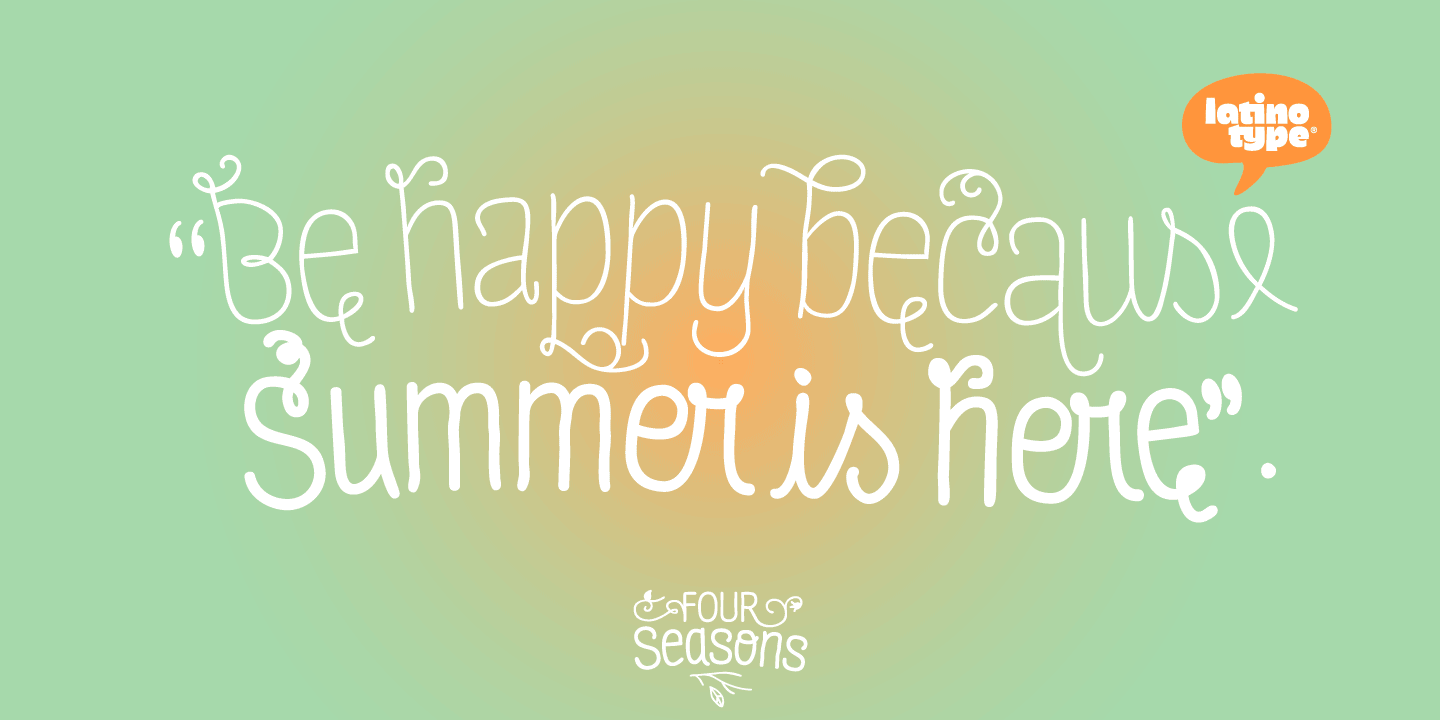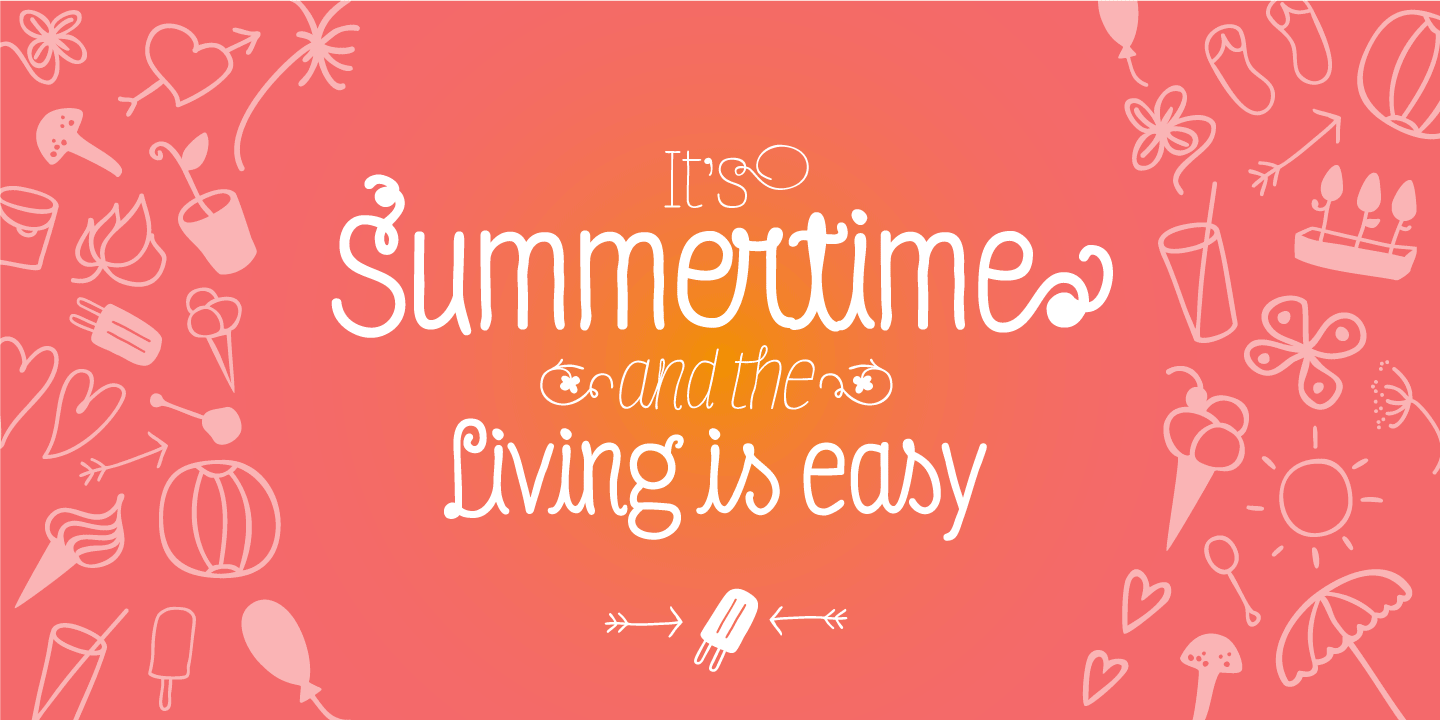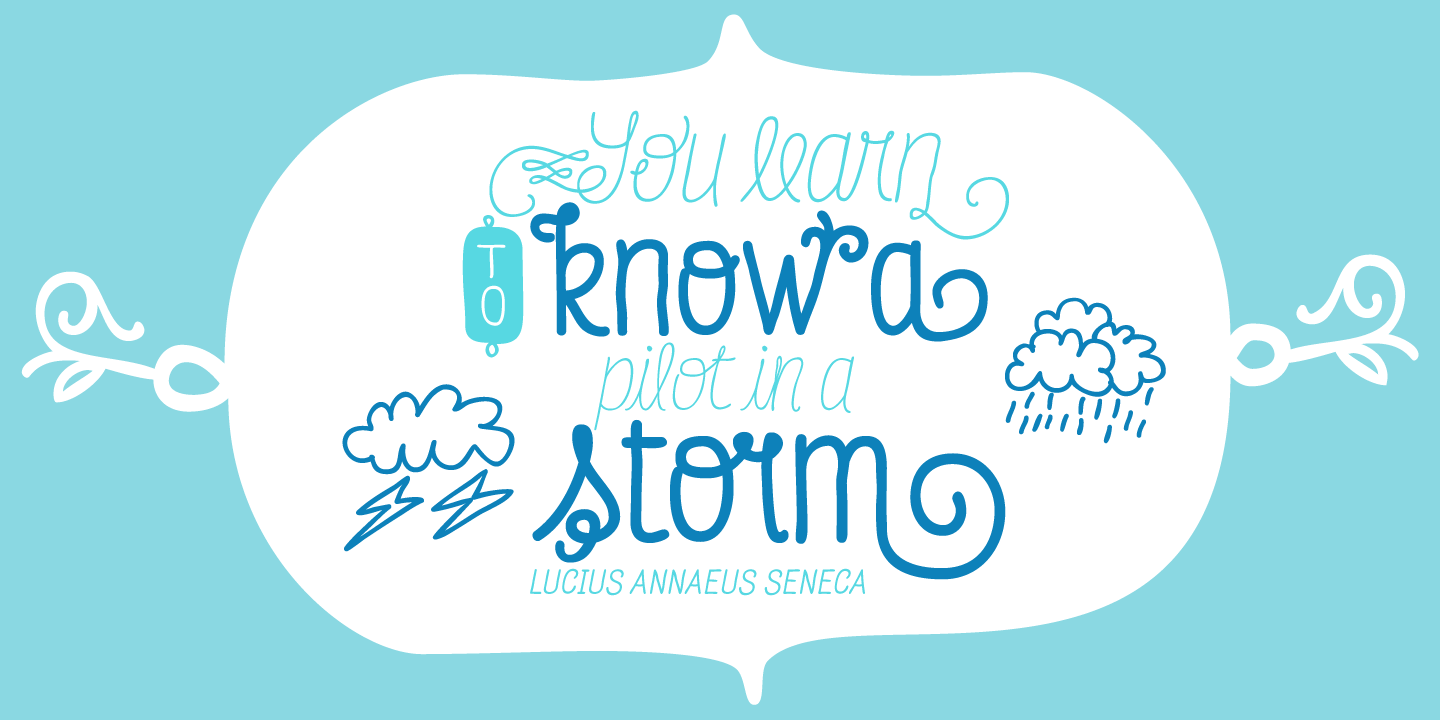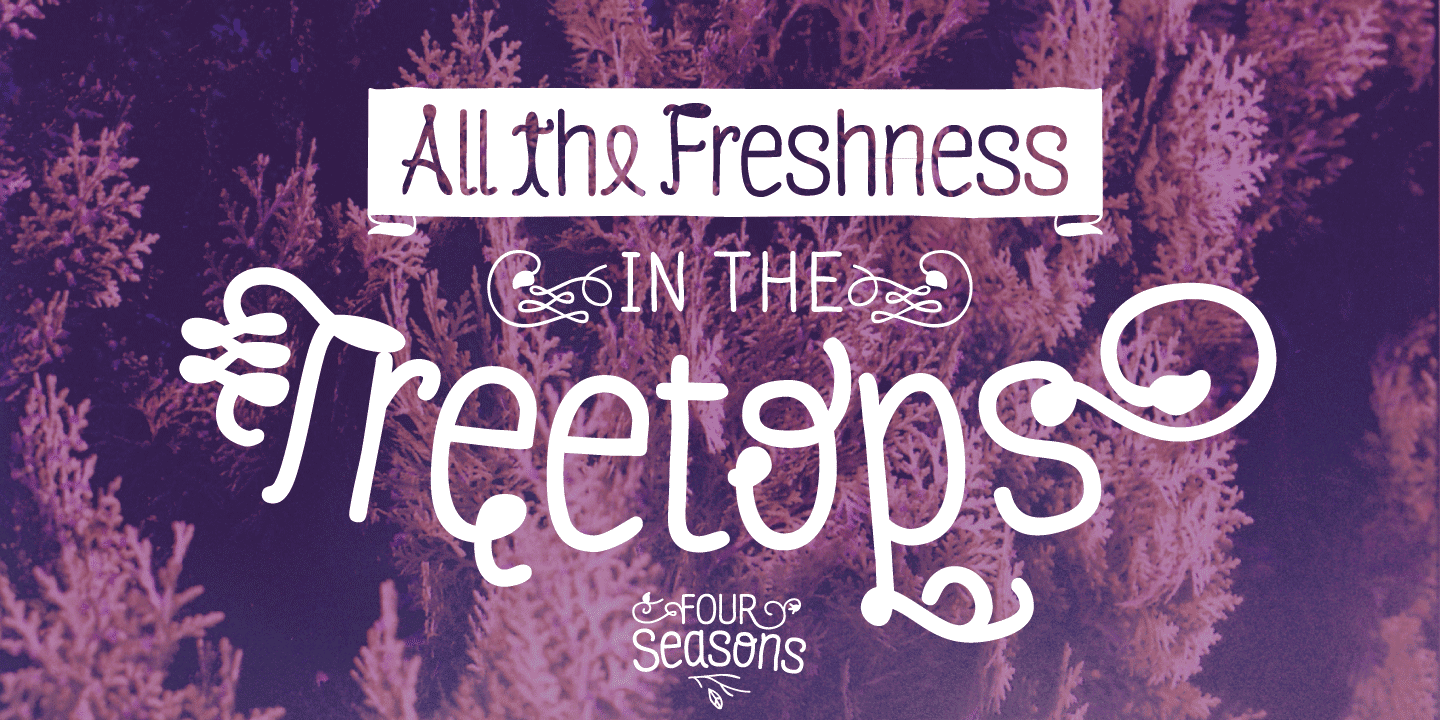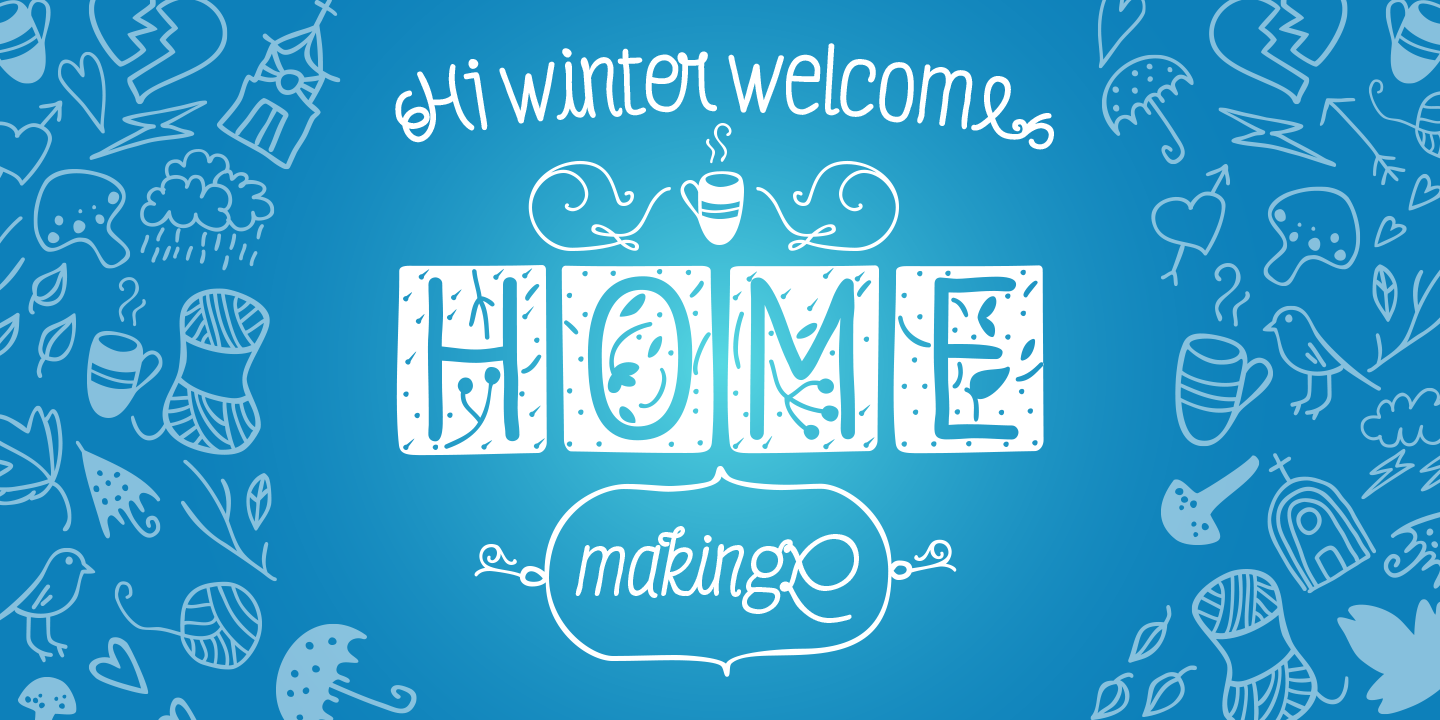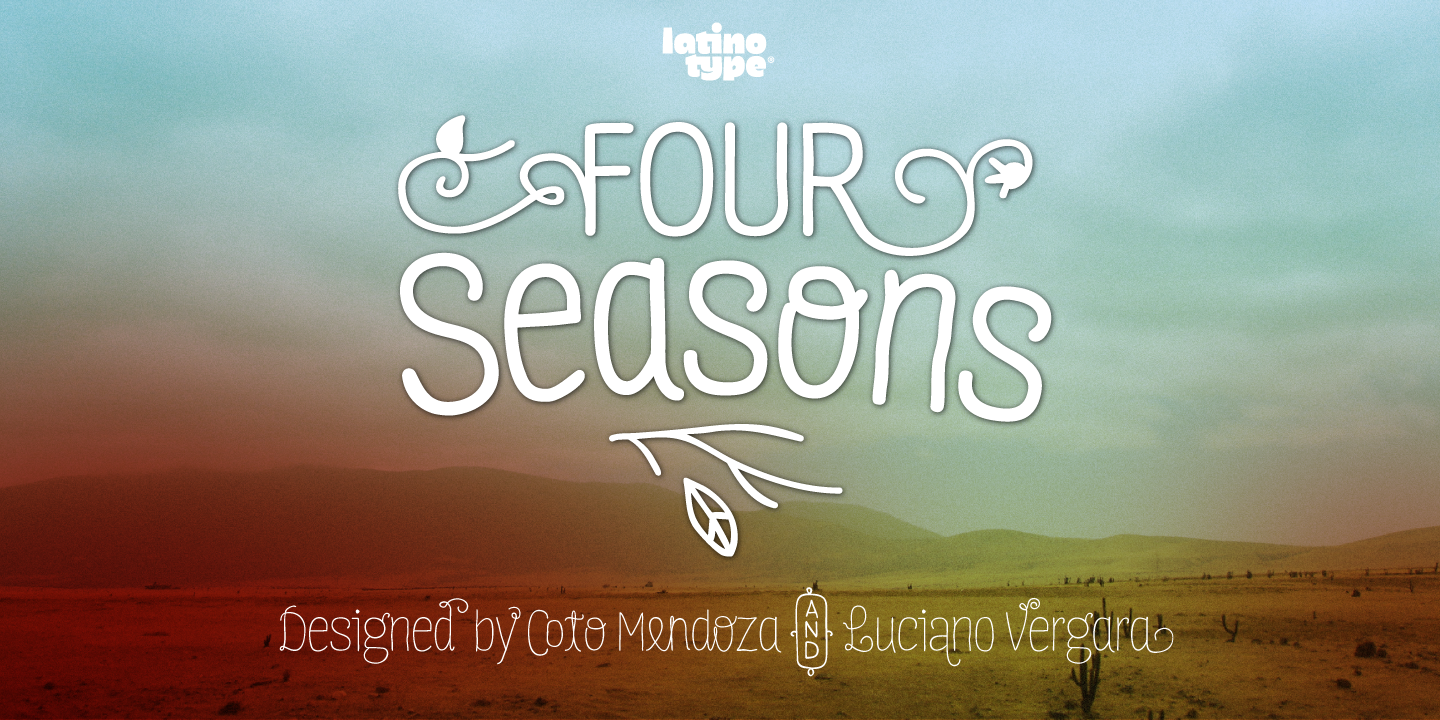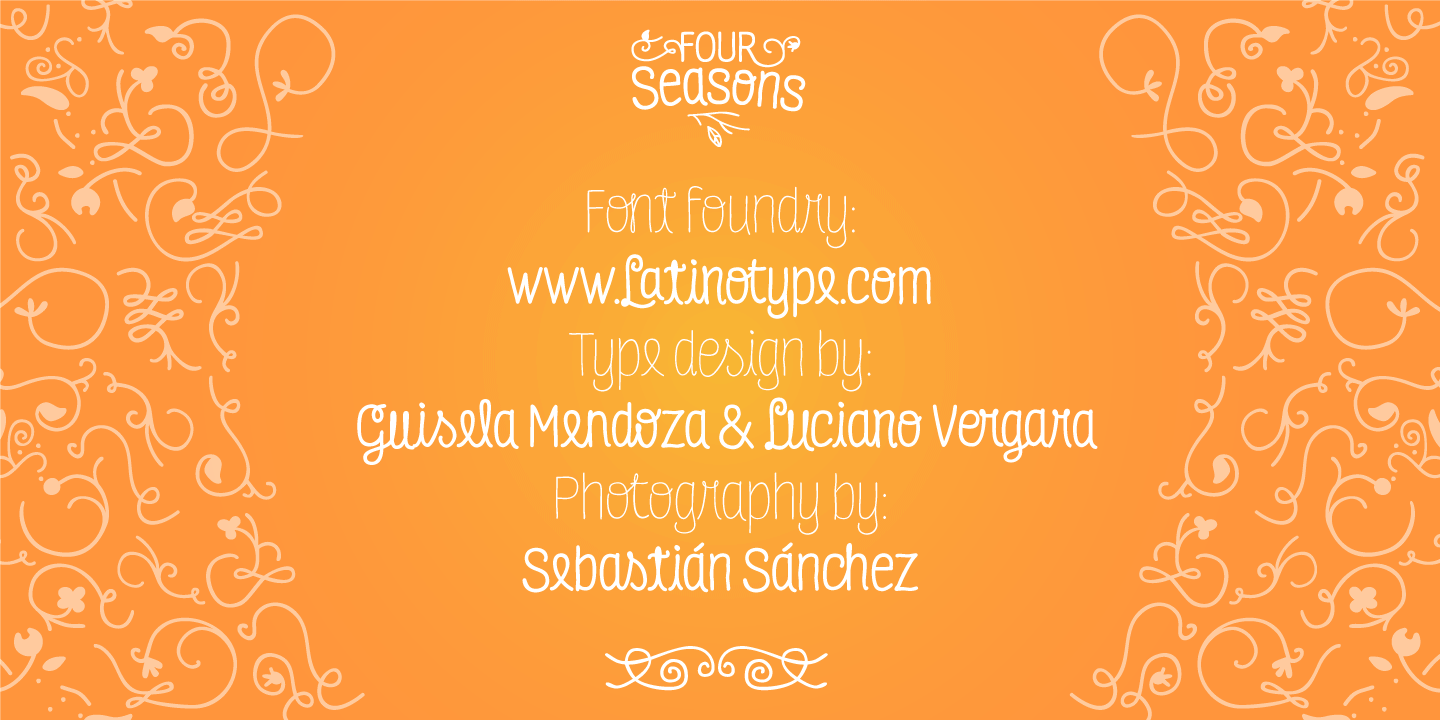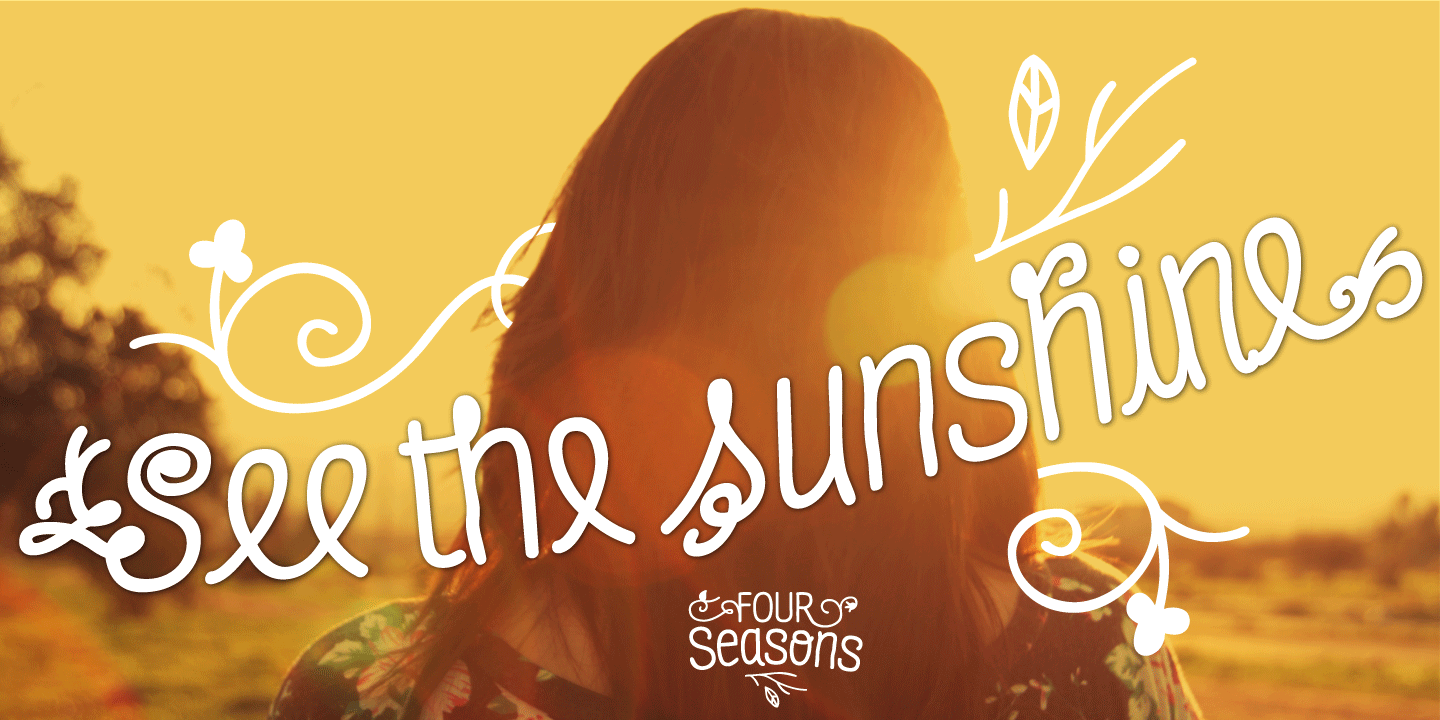
It has an extensive character set of opentype programming including: titlings, endings, initials, swashes, ligatures, alternates besides a cute set of ornaments, dingbats and words all based on the shoots, branches, leaves and flowers of the forest in the four seasons.